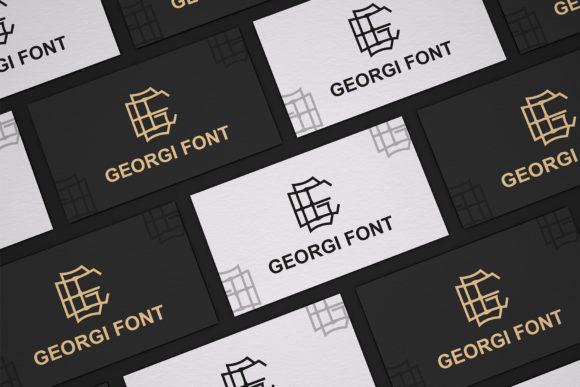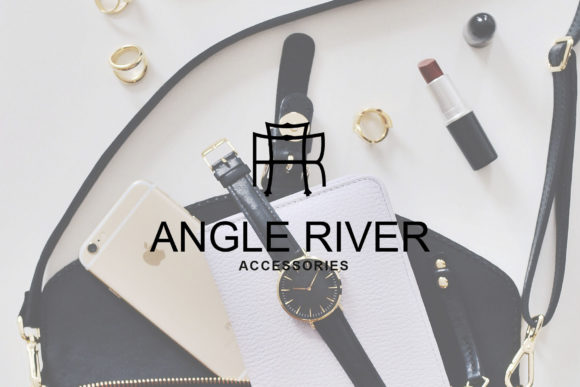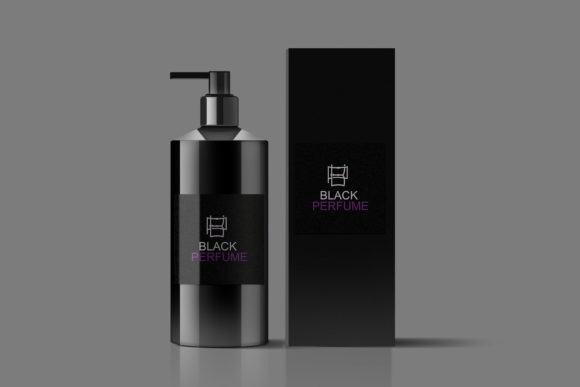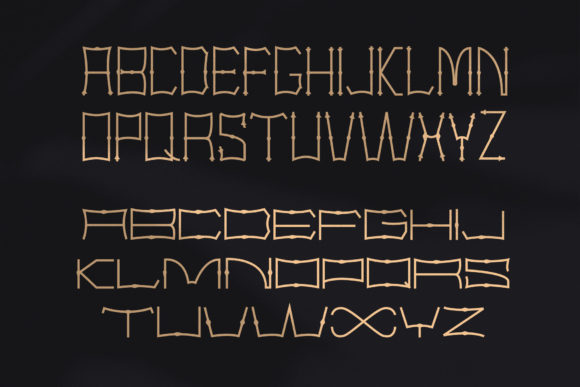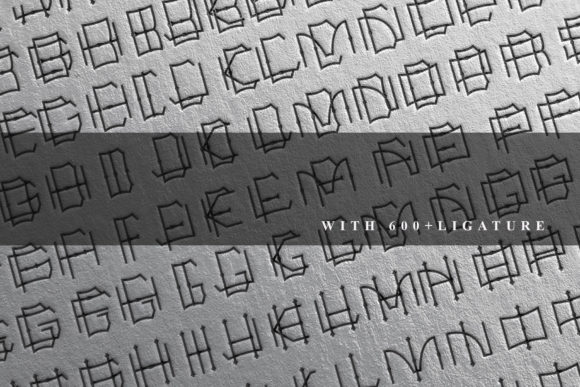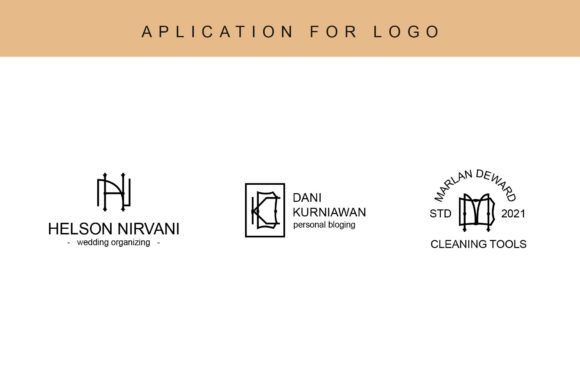
The Art of Expression: Unlocking the Potential of Georgi Font
You’ve stared at a blank page, waiting for the perfect font to bring your creative vision to life. The cursor blinks, and your mind wanders – what if you could infuse your design with a touch of elegance and sophistication? This is where the Georgi Font comes in, a stunning decorative font that’s about to revolutionize the way you express yourself.
Georgi Font is more than just a pretty face; it’s a powerful tool for designers who crave uniqueness and flair. With its PUA encoding, accessing the intricate glyphs and swashes is a breeze, allowing you to unleash your creativity without any hassle. Whether you’re working on a branding project, a wedding invitation, or a stunning piece of art, Georgi Font is the perfect companion to help you achieve your artistic goals.
Georgi Font Key Features
- Font Family: Georgi Font is a sans-serif font family designed by Parachute.
- Character Set: The font includes a wide range of characters, including Latin, Cyrillic, and Greek alphabets.
- Unique Characteristics: The font features a clean, modern design with a distinctive x-height and a wide range of weights and styles.
Georgi Font Review
I recently had the chance to work with the Georgi Font, and I must say it’s an interesting addition to the world of typography. ✨ The font’s geometric shapes and clean lines give it a modern feel, making it perfect for contemporary designs. The font family includes a range of weights, from light to bold, allowing for flexibility in terms of usage.
- ✨ Unique geometric design that stands out from the crowd
- ✨ Multiple weights available for various design applications
- ✨ Supports a range of languages, making it a versatile option
However, there are a few limitations to consider. ⚠️ The font’s readability can be affected by the size and color used. At small sizes or in dark colors, the font can become difficult to read. Additionally, the font’s geometric design may not be suitable for all types of content, such as body text or headlines with complex layouts.
Overall, I would recommend the Georgi Font for designs that require a modern and clean aesthetic. While it may not be suitable for all applications, it’s a great option for logos, headers, and other design elements where a unique and eye-catching look is desired.
Tips for Getting the Most Out of Georgi Font
Georgi Font is a versatile font that can be used for a variety of purposes. Here are some tips for getting the most out of it:
- Use Georgi Font for headings and titles to add a touch of elegance and sophistication.
- Combine Georgi Font with other fonts to create a unique and eye-catching design.